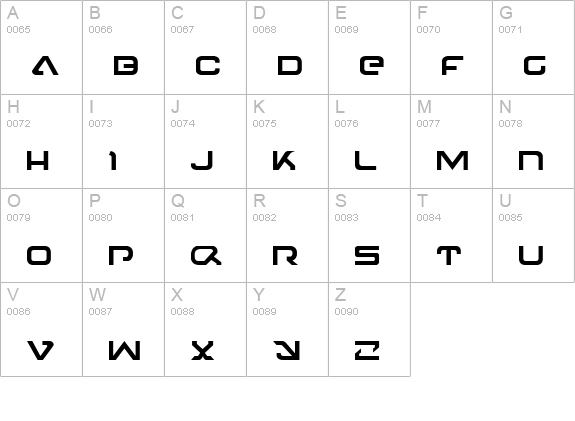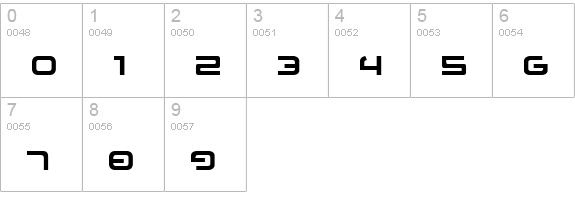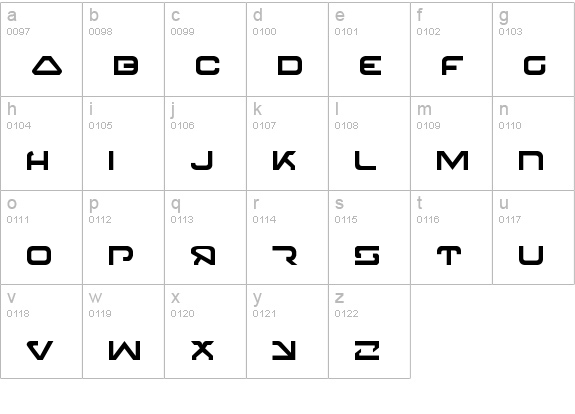
Introducing the captivating 4114 Blaster font, a dynamic and futuristic typeface that is sure to make your designs stand out! This cutting-edge font features sleek lines and sharp angles that exude a sense of energy and modernity. Perfect for projects that require a bold and edgy look, 4114 Blaster font will add a touch of excitement to any design. And the best part? This striking font is available for free download at FontsMarket.com! Whether you're working on a poster, website, or branding project, 4114 Blaster font will bring a fresh and contemporary vibe to your work. Don't miss out on this fantastic opportunity to elevate your designs with this eye-catching typeface. Download 4114 Blaster font today and unleash your creativity!